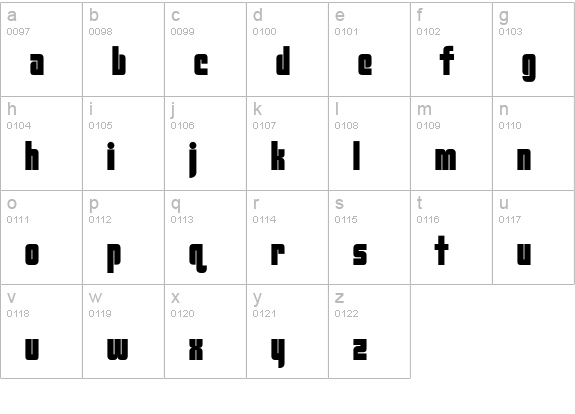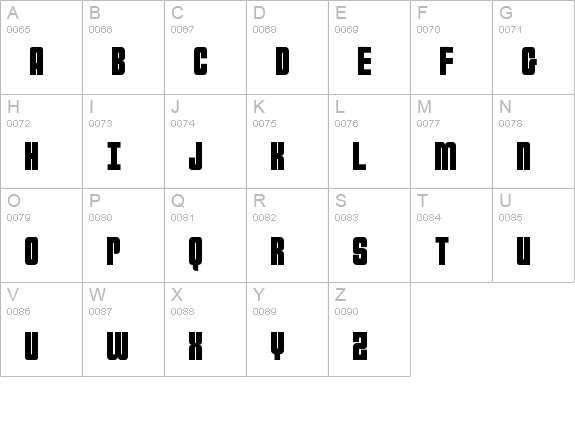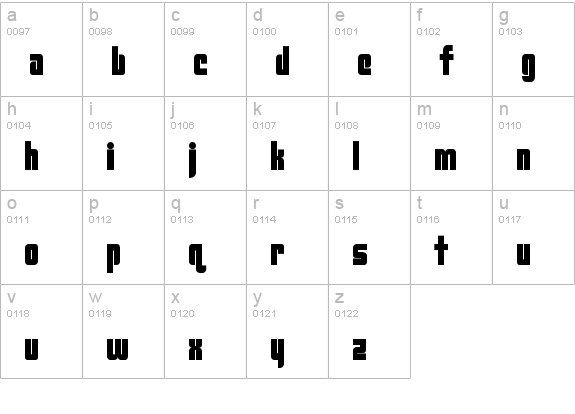
Cosmic Font Details
Introducing Cosmic font - a stunning and futuristic typeface that will elevate your design projects to new cosmic heights. This captivating font features sleek lines and a modern aesthetic, perfect for adding a touch of sophistication to any design. Whether you're creating a logo, poster, or branding materials, Cosmic font will surely make a bold statement. What's even better is that Cosmic font is available for free! You can easily download this impressive typeface at FontsMarket.com and start using it in your projects right away. Don't miss out on the opportunity to add this versatile and eye-catching font to your toolkit. Download Cosmic font today and let your creativity soar to the stars!